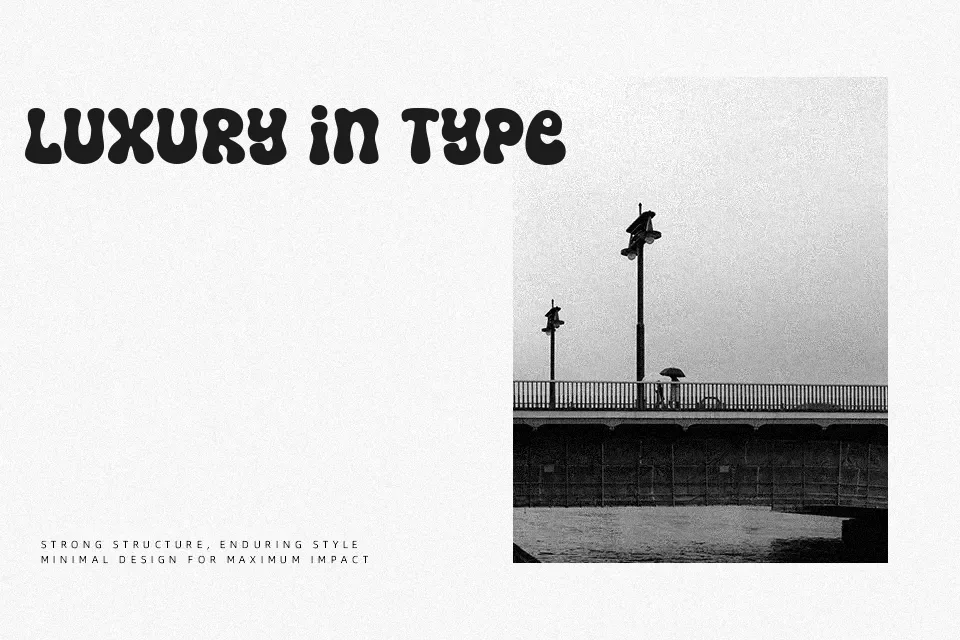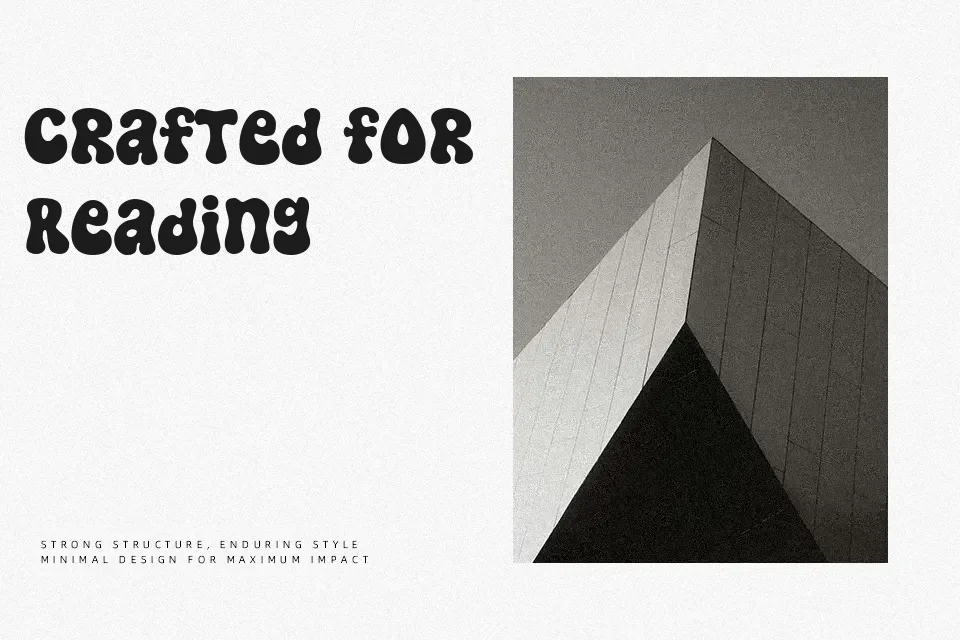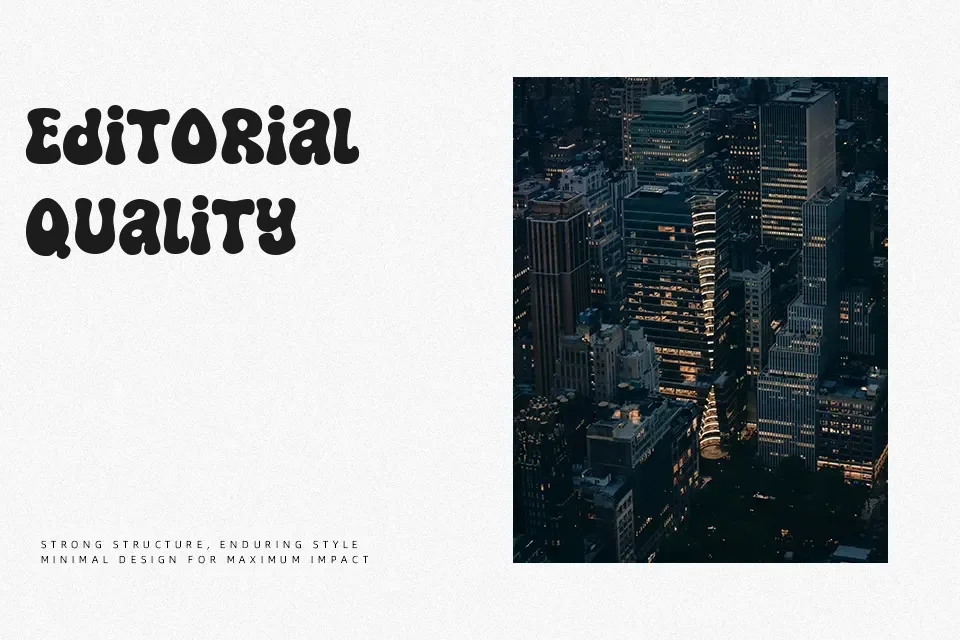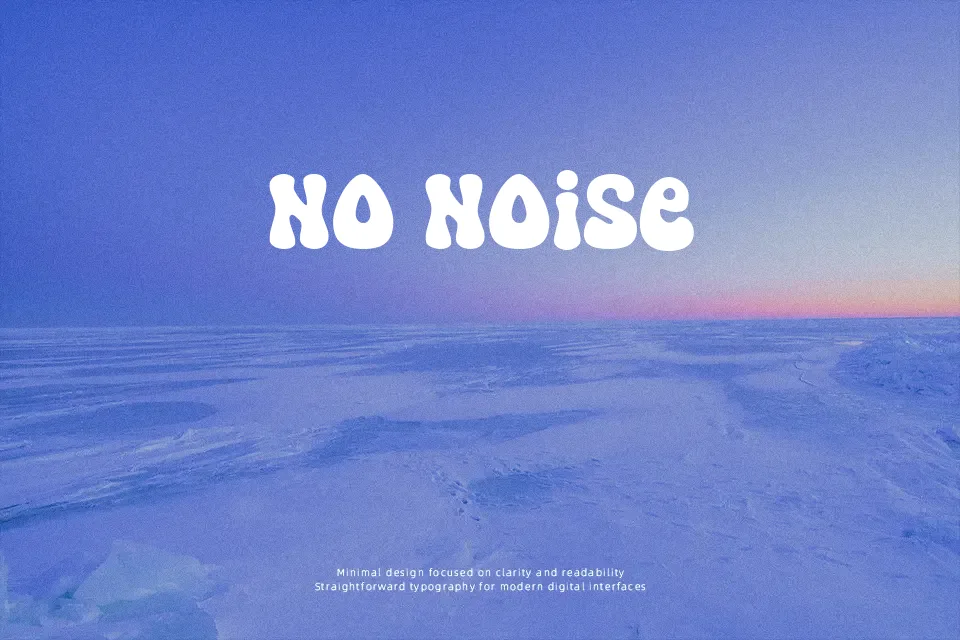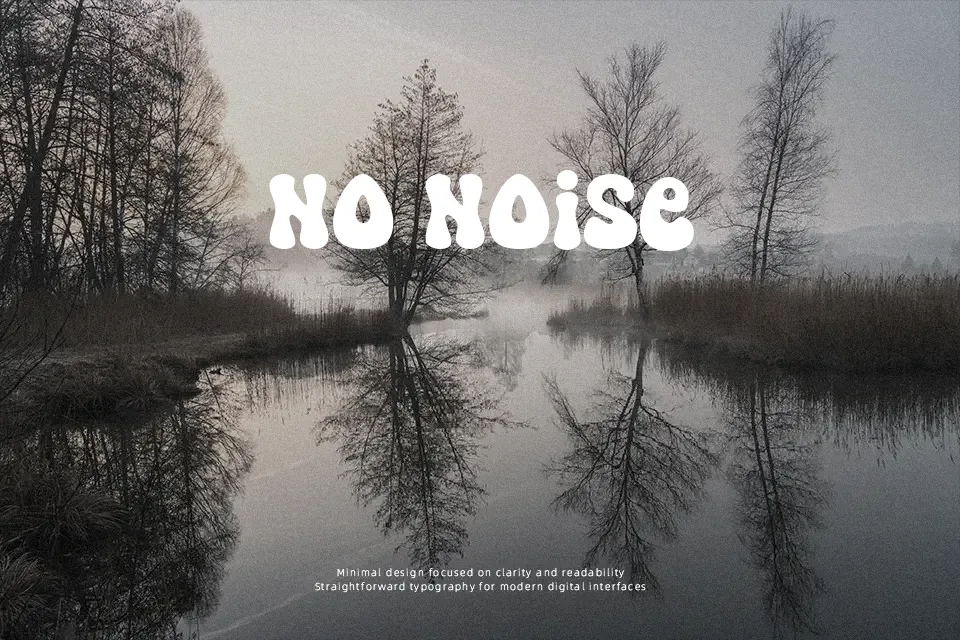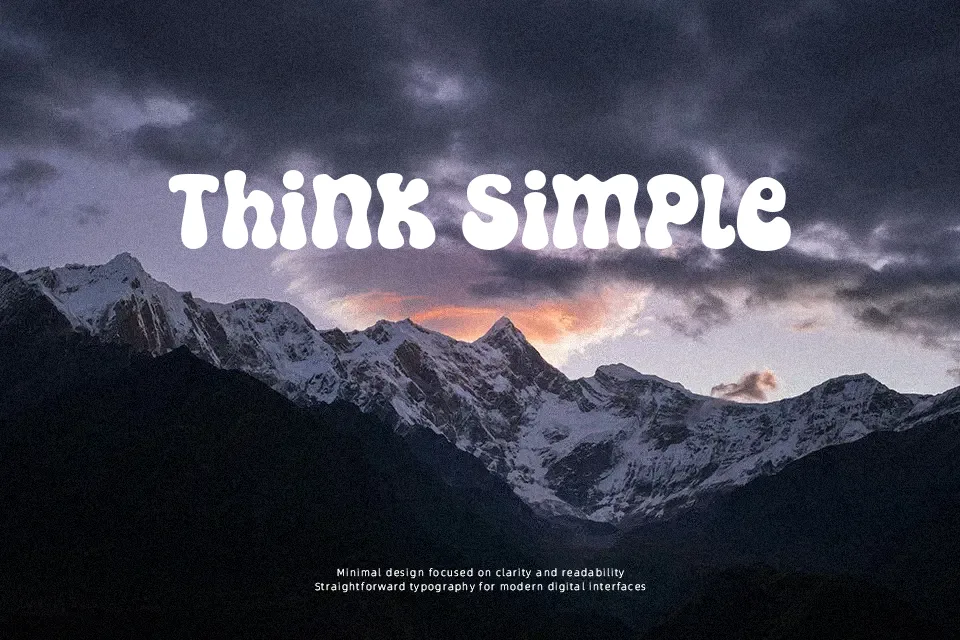
Super Arena Font
Super Arena Font stands out through ultra-heavy stroke weights, deeply rounded terminals, and compact letter spacing that create a bubbly, rhythmic structure. The glyphs showcase minimal contrast with expanded horizontal proportions, giving each character substantial mass and impact. In large headline applications and apparel prints, the design delivers immediate clarity and exuberant character. However, the condensed counters and substantial stroke thickness severely restrict legibility at miniature scale. As a result, dense body paragraphs lose definition and become difficult to scan comfortably. The letterforms excel in short titles where generous breathing room preserves boundary separation between neighboring shapes.
– Retro festival posters
– Children’s apparel graphics
– Novelty product packaging
– High-impact banner headlines
– Extended editorial body text
– Dense financial tables
– Small interface microcopy
– Official corporate documents
Perfect for headline, kids, and logo, with a bold and decorative style.